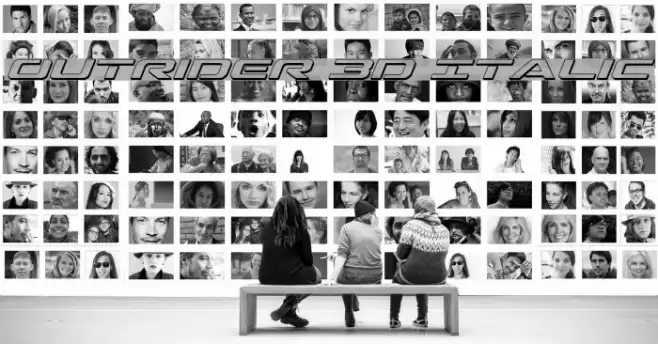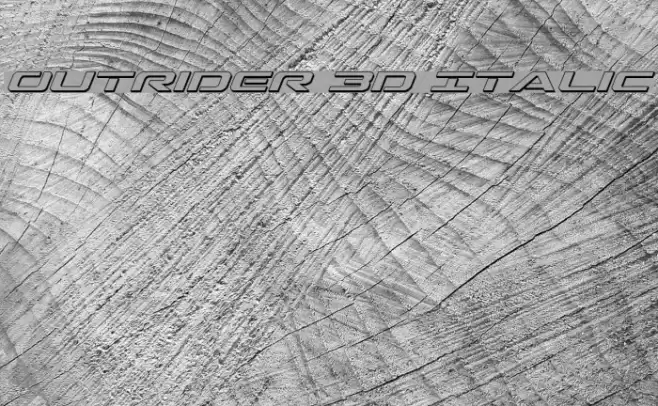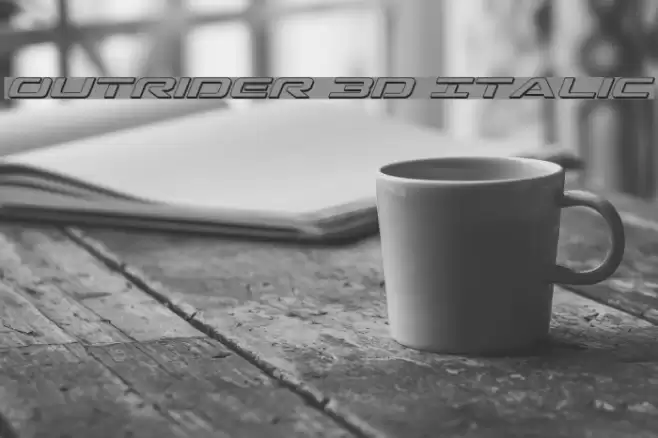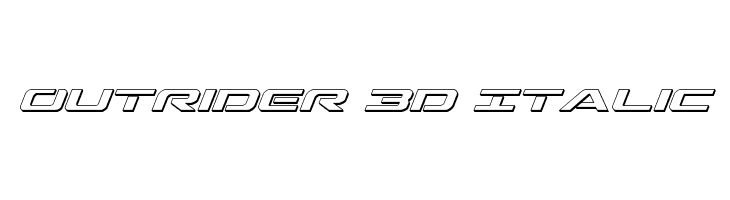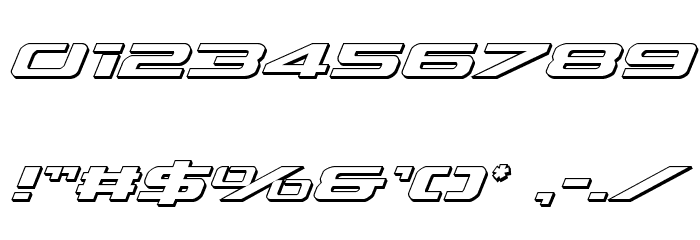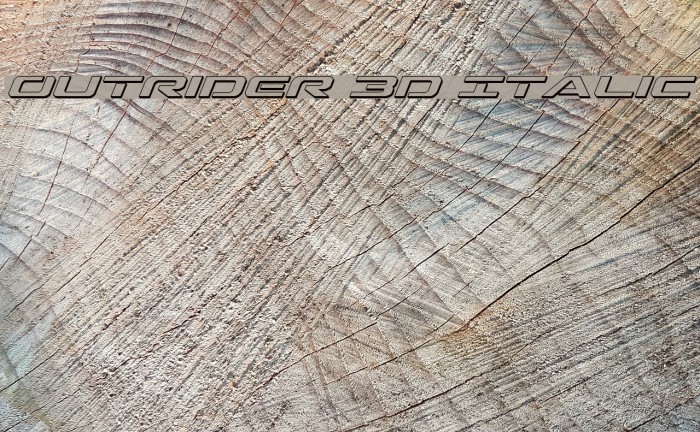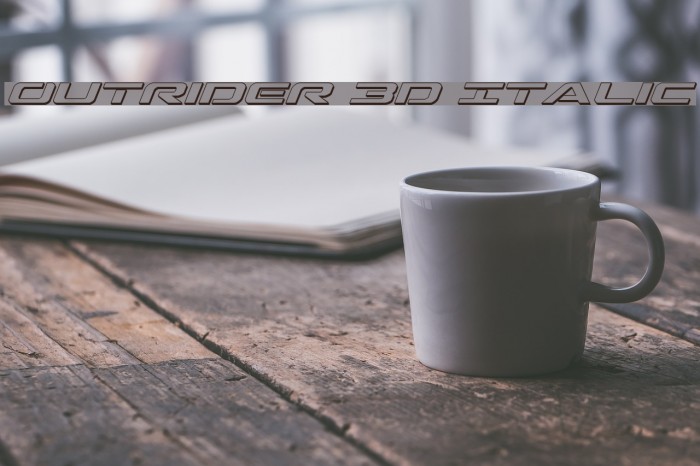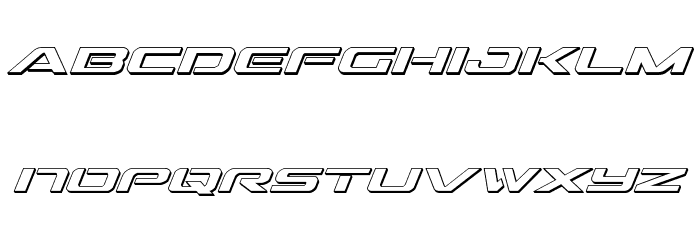
Outrider 3D Italic Font
Outrider 3D Italic Description
This font features a bold, three-dimensional design with a futuristic and dynamic appearance. The characters are outlined, giving them a hollow look that enhances the 3D effect. Each letter is italicized, adding a sense of motion and speed. The geometric shapes and sharp angles contribute to a modern and edgy style. The font maintains consistent line thickness throughout, ensuring readability while emphasizing its unique structure. The spacing between characters is normal, allowing for clear distinction between each letter. This font is ideal for projects that require a strong visual impact and a contemporary aesthetic.
A bold, 3D italic font with a futuristic and dynamic style from Uncategorized fonts.
- Proposed Projects: Ideal for sci-fi themed designs, video game titles, technology branding, and modern posters.